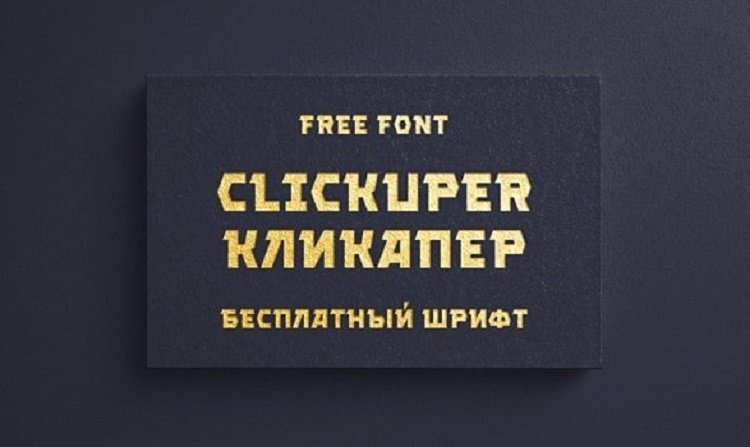
Clickuper Display Font Free
Clickuper Display Font is a geometric retro futuristic display font strongly based on the reduced. This font perfectly made to be applied especially in logo, and the other various formal forms such as invitations, labels, logos, magazines, books, greeting / wedding cards, packaging, fashion, make up, stationery, novels, labels or any type of advertising purpose.